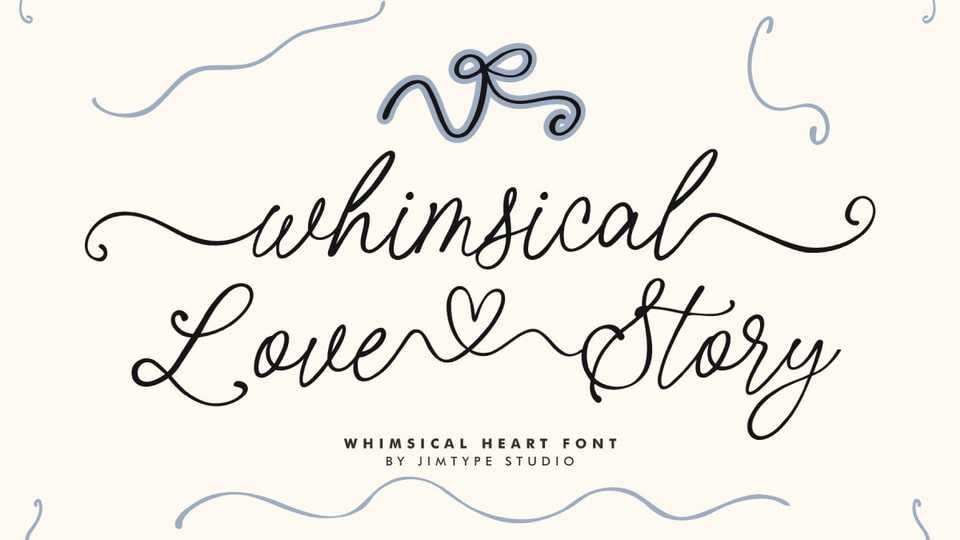
Download Whimsical Love Story font, a unique handwritten typeface with a romantic feel and a touch of feminine charm, designed with natural flow, elegance, and flexibility.